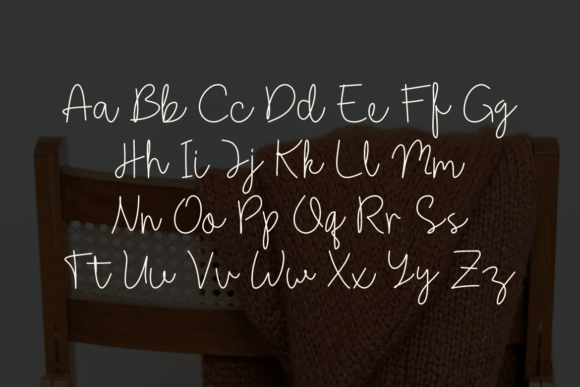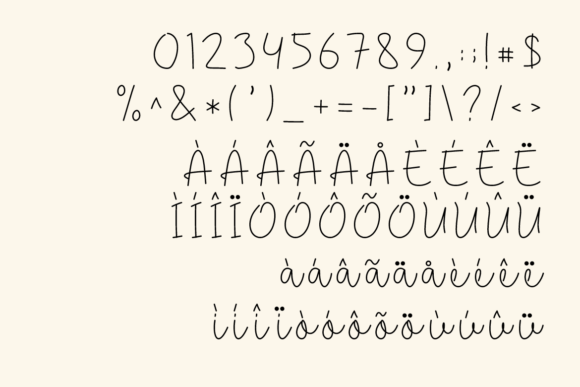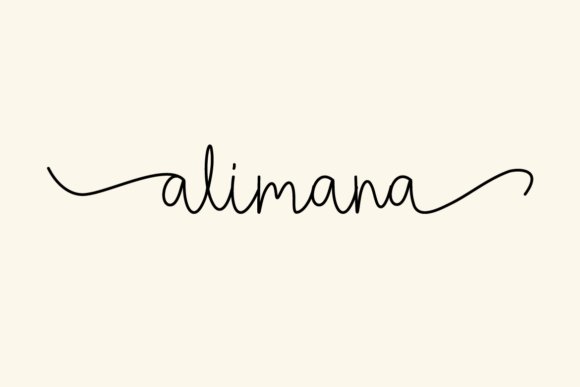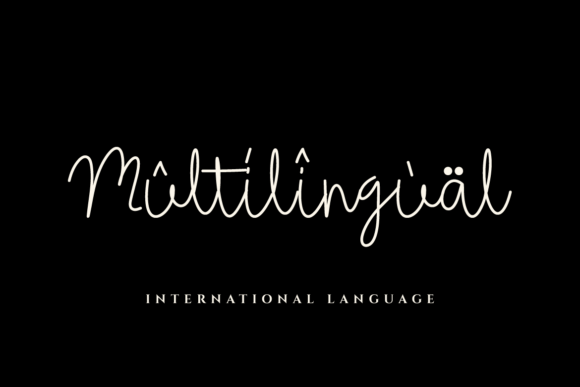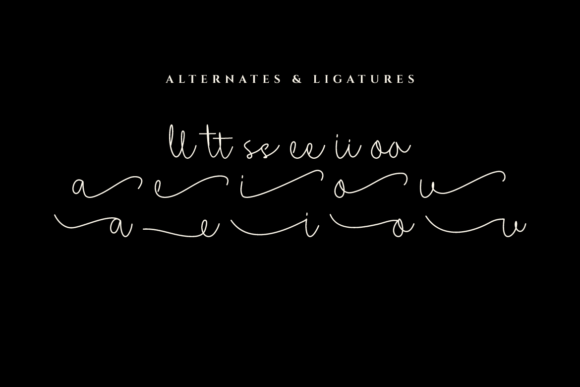
The Elegant Bellaty Font: Elevate Your Designs with Sophistication
I still remember the struggle of working on a project, pouring my heart and soul into every detail, only to be held back by one thing: the font. I was designing a wedding invitation, and I wanted it to be perfect – elegant, sophisticated, and romantic. But every font I tried seemed to fall flat. That was until I discovered Bellaty, a modern script font that changed the game. In this article, I’ll share my experience with Bellaty, its features, and how to make the most of it in your designs.
An Honest Review of Bellaty
- ✨ Elegant and sophisticated design that’s perfect for high-end projects
- ✅ Beautifully crafted letterforms with flowing curves and subtle nuances
- 💫 Support for OpenType features, glyphs, and stylistic alternates for added creativity
- 🎨 Highly versatile and adaptable to various design styles and industries
While Bellaty is an exceptional font, there are a few things to keep in mind:
- 🤔 Some users may find the font a bit challenging to read at small sizes due to its script nature
- ⚠️ Limited availability of certain characters or glyphs in certain platforms or software
A Practical Guide to Using Bellaty
The Story Behind Bellaty
Bellaty was designed with the intention of capturing the essence of feminine style and contemporary design. The creator, a passionate typographer, aimed to craft a font that exudes elegance, beauty, and sophistication. Inspired by classic calligraphy and modern digital design, Bellaty was born – a perfect blend of traditional and modern elements.
Q: What type of projects is Bellaty best suited for?
Bellaty is an excellent choice for high-end designs, such as wedding invitations, luxury branding, and elegant packaging.
Q: Does Bellaty support OpenType features?
Yes, Bellaty supports OpenType features, including ligatures, stylistic alternates, and glyphs, allowing for added creativity and customization.